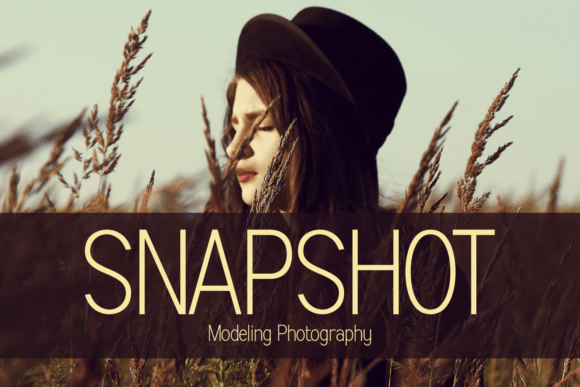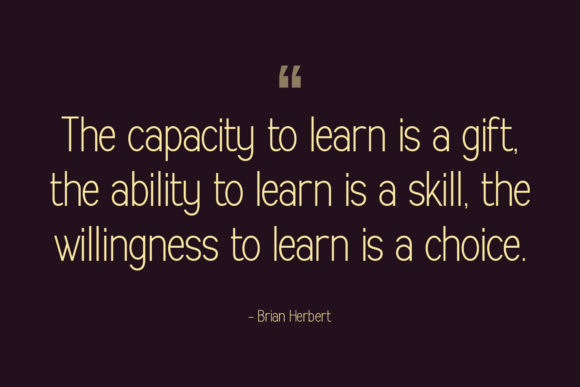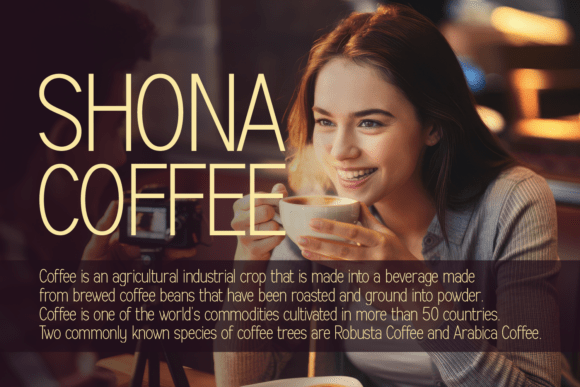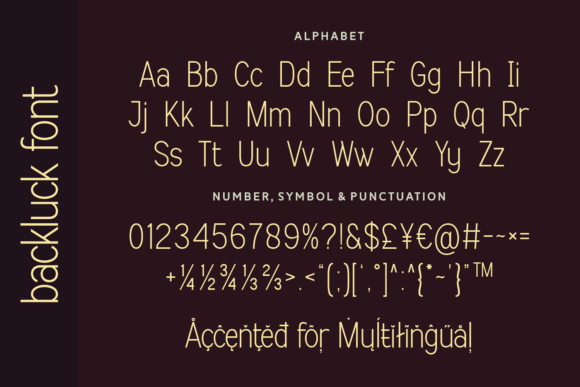
Introducing Backluck Font: The Ultimate Sans Serif for Modern Design
In the world of typography, a new font has emerged that’s making waves with its sleek, modern design. Meet Backluck Font, a sans serif typeface that’s perfect for designers and crafters looking for a sophisticated and geometric look. In this article, we’ll dive into the features and benefits of Backluck Font, and explore how it can elevate your branding, headlines, and tech-focused designs.
A Promotional Image that Speaks Volumes
The promotional image for Backluck Font is a stunning representation of the font’s capabilities. With its minimalist and high-contrast design, the image highlights the font’s clean, geometric, and modern character. The image features the font in various sizes and styles, showcasing its versatility and range. Whether you’re a designer or a crafter, this image is sure to grab your attention and leave a lasting impression.
Clean, Geometric, and Modern: The Characteristics of Backluck Font
Backluck Font is a sans serif typeface that’s designed to be clean, geometric, and modern. Its sleek lines and minimalist design make it perfect for designs that require a sophisticated and elegant look. The font’s geometric characteristics give it a unique and futuristic feel, making it ideal for tech-focused designs and branding. With Backluck Font, you can create designs that are both visually appealing and highly legible.
Sophisticated Branding and Headlines
Backluck Font is perfect for creating sophisticated branding and headlines that make a lasting impression. Its clean and modern design ensures that your brand stands out from the crowd, while its geometric characteristics give it a unique and memorable look. Whether you’re designing a logo, a brochure, or a website, Backluck Font is the perfect choice for creating professional and eye-catching headlines.
Tech-Focused Design: The Perfect Fit
Backluck Font is also ideal for tech-focused designs, such as software, apps, and websites. Its modern and geometric design makes it perfect for creating sleek and sophisticated interfaces that are both visually appealing and highly usable. With Backluck Font, you can create designs that are both cutting-edge and highly functional.
So, what are the benefits of using Backluck Font for designers and crafters? Here are just a few:
- Clean and modern design: Backluck Font features a clean and modern design that’s perfect for creating sophisticated branding and headlines.
- Geometric characteristics: The font’s geometric characteristics give it a unique and futuristic feel that’s ideal for tech-focused designs.
- High legibility: Backluck Font is designed to be highly legible, making it perfect for creating designs that are both visually appealing and easy to read.
- Versatility: The font comes in various sizes and styles, making it perfect for a wide range of design applications.
In conclusion, Backluck Font is a game-changer for designers and crafters looking for a sophisticated and modern sans serif typeface. Its clean, geometric, and modern design makes it perfect for creating branding, headlines, and tech-focused designs that are both visually appealing and highly legible. With its versatility and range, Backluck Font is sure to become a go-to font for designers and crafters around the world.
Get Ready to Elevate Your Designs with Backluck Font